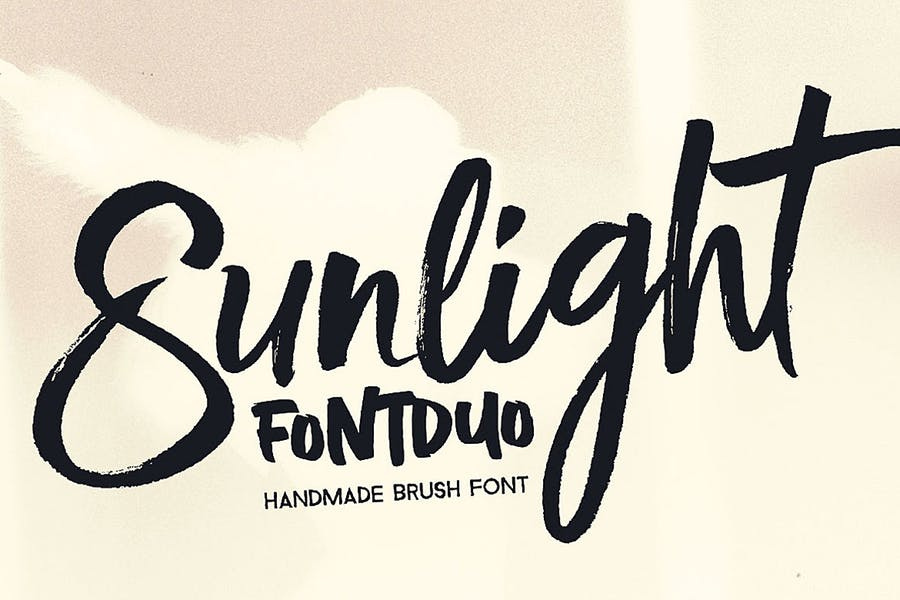
Sunlight - Brush Font Duo
Sunlight - Brush Font Duo is perfect for summer vacation branding, outdoor adventure logos, tropical resort signage, wellness retreat materials, beach wedding invitations, sunshine-themed campaigns, vitamin D product packaging, solar energy company identity, cheerful children's books, optimistic lifestyle brands, happy event posters, and uplifting storytelling projects.
Sunlight - Brush Font Duo is exciting because it radiates warmth and positivity with two harmoniously paired brush typefaces that capture the golden glow and life-giving energy of sunshine, creating joyful typographic compositions that instantly brighten any design and fill viewers with the optimistic spirit of endless summer days.
The Sunlight - Brush Font Duo family includes radiant variations: Sunlight Script, Sunlight Sans, Bold rays, Light beams, Cheerful alternates, and Golden flourishes, offering designers a complete sunshine typography system to create uplifting compositions that celebrate joy, warmth, and the life-affirming power of natural light.
The font duo's brilliantly crafted relationship mirrors the perfect harmony of sunshine and happiness - the script component provides flowing warmth and organic beauty, while the sans element adds steady brightness and clear communication. Together, they create typographic compositions that feel like visual sunshine.
Sunlight - Brush Font Duo excels in creating memorable brand experiences for businesses celebrating joy, wellness, and positive lifestyle choices. Its radiant appeal transforms ordinary communications into uplifting messages that resonate with audiences seeking happiness, health, and the simple pleasure of sunshine-filled experiences.
Professional designers appreciate how Sunlight - Brush Font Duo offers incredible versatility in wellness and lifestyle design applications. The complementary styles work beautifully together or independently, allowing for sophisticated typographic arrangements that guide audiences through positive narratives with the natural warmth of golden sunlight.
This remarkable font pairing brings instant joy and positivity to any project celebrating life's bright moments. From wellness centers to vacation resorts, Sunlight - Brush Font Duo creates lasting impressions that communicate happiness, vitality, and the transformative power of sunshine to brighten every day.